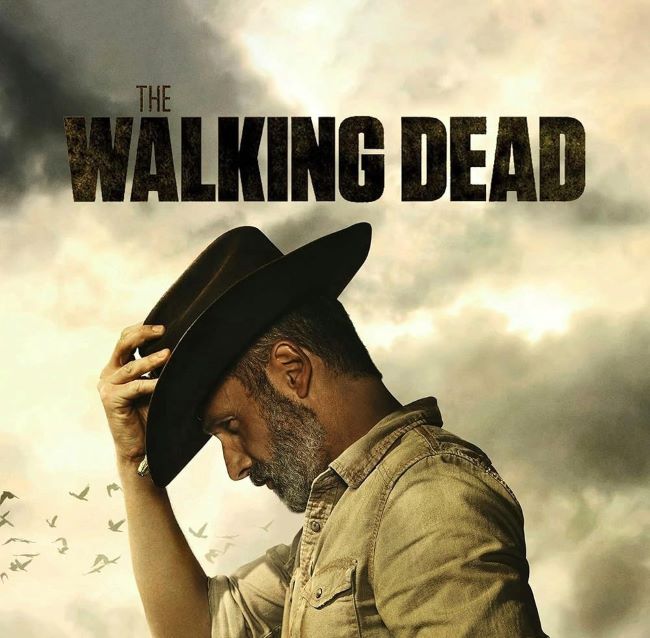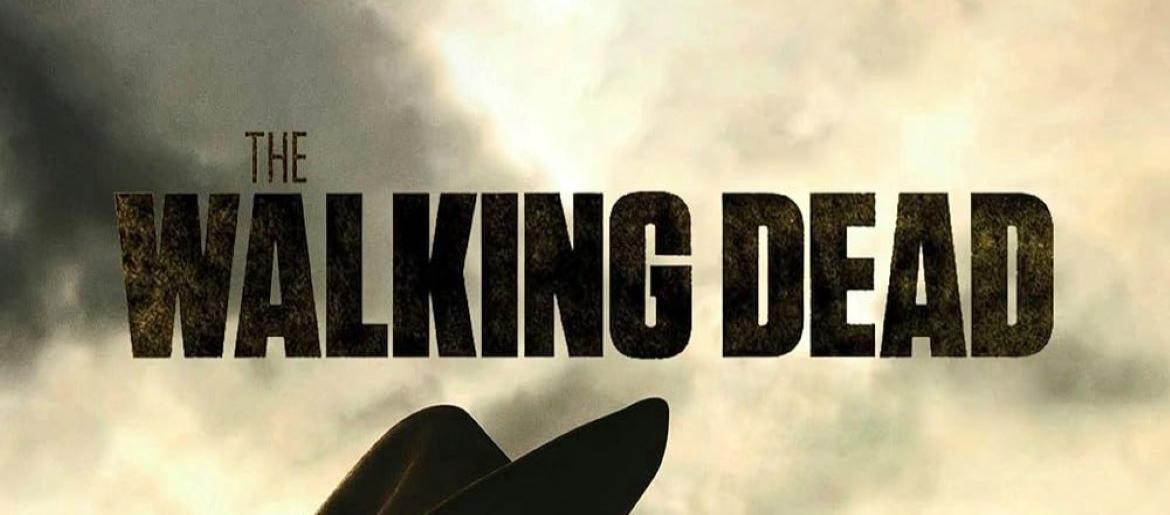
The Walking Dead Font
The Walking Dead Font delivers the same gritty, decayed energy that defines the series. Its distressed, eroded lettering instantly conveys danger, survival, and a world falling apart. The rugged texture feels harsh and unsettling—perfect for capturing the bleak tension of a post-apocalyptic setting where every moment is a fight to stay alive.
Designers often choose this style when they want to express decay, chaos, or raw intensity. It’s a powerful visual cue that something dangerous is lurking just out of sight.